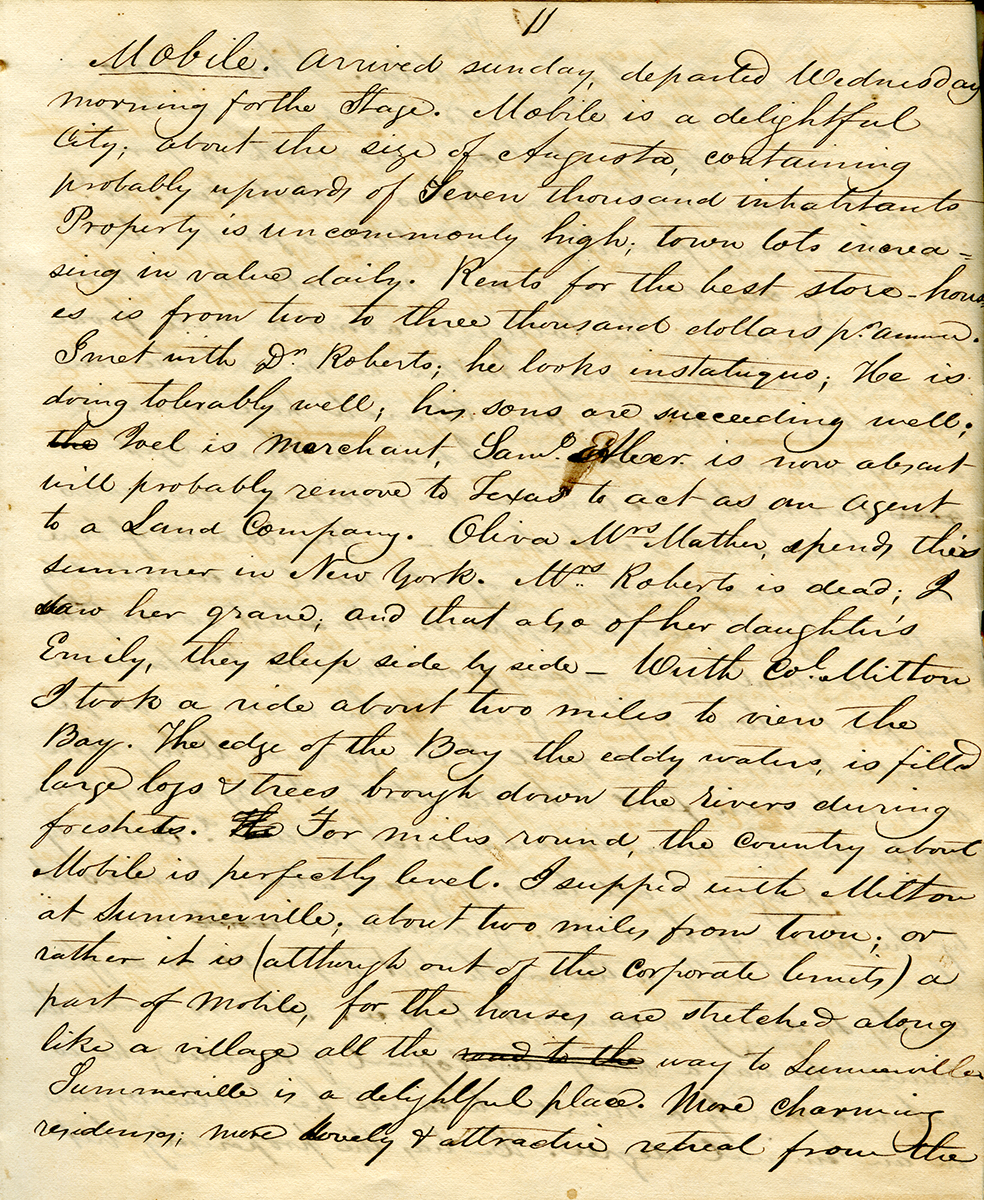
Handwritten keepsakes
Penmanship of Timothy Matlack (the Declaration of Independence).
The other day I had a thought about handwritten keepsakes. It started as a recognition of how unique are the times we’re living through. And how, to record our story, future historians will be poring over source material—that is, contemporary accounts of what’s happening. Used to be, contemporary accounts came from folks putting pen to paper. In our modern digital world, of course, putting pen to paper doesn’t happen very often anymore.
In just my lifetime, written communication has gone from thoughtfully hand-penned (or -typed) letters dropped in the mail to quick, scattershot batches of electrons in the form of email, texts, emojis, memes. And that’s just written words. In recent years, communication has trended toward the digital, the immediate—streaming multimedia, smartphone videos, TikTok. Just now, as humanity grapples with the novelty of social-distancing during a pandemic, even good ol’ face-to-face spoken language happens online via Zoom and Skype and FaceTime.
Our very signatures—once our personal mark, our brand—are in jeopardy. (I rarely even sign checks anymore.) Nowadays, we’re most likely to find pages filled with cursive script in boxes of memorabilia, collections of old letters, books of grandmas’ recipes.
Since future generations will surely view this time with fascination and remembrance, why not take advantage of our stay-at-home predicament to create a few handwritten keepsakes?
An easy way to do this? Write a letter. Perhaps a long, mindful letter to a loved one, a letter that—if mindful enough—might well get tucked safely away and passed along to future generations. Another way might be to keep a journal of your thoughts and feelings. Even simply an account of what you’re up to, maybe a diary of your dreams. If you happen to be a birding enthusiast (as I am), make a daily list of birds.
I think, for instance, of the daily diary my father kept as a young man. While in the Army after World War II (stationed at Fort Hunt, Virginia, as part of the top secret operation code-named P.O. Box 1142), he wrote these lines on March 7, 1946, the day he and a buddy caught a ride with some ladies in a Cadillac on the way to Washington D.C.
The ladies asked where we were from, and when we evaded answering, the middle wanted to know the reason for such secrecy now that the war was over. Arno said something about having tried to reach General Eisenhower for an answer to that, but that he had had no luck in finding out. We rode on very pleasantly into Washington where the rain began coming down. A the capitol building the lady driving stopped to let us out, turned and dropped her own atom bomb. “What would you boys say, if I told you that you had been driving with Mrs. Eisenhower?” What followed is rather hazy, but we thanked her for the ride, caught our train, laughed over the surprising incident all the way to New York City.
I must say, reading Dad’s contemporary account of this classic family story in his familiar, legible cursive truly enlivens a moment from nearly three-quarters of a century ago.
Consider the power of handwritten keepsakes. Chances are not only will the contents of what you pen today prove memorable one future day, your own distinctive hand will, like a fingerprint, add a personal touch to history.
(I write so little by hand these days—let’s see if I can take my own advice!)
Abigail Adams (letter to John Adams, 1789, via Massachusetts Historical Society).